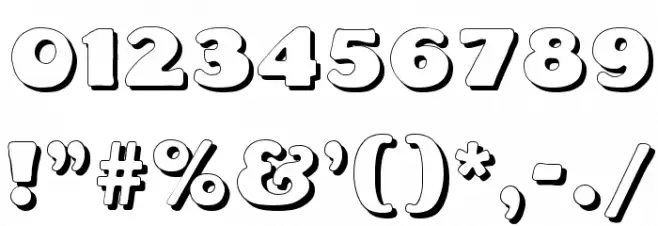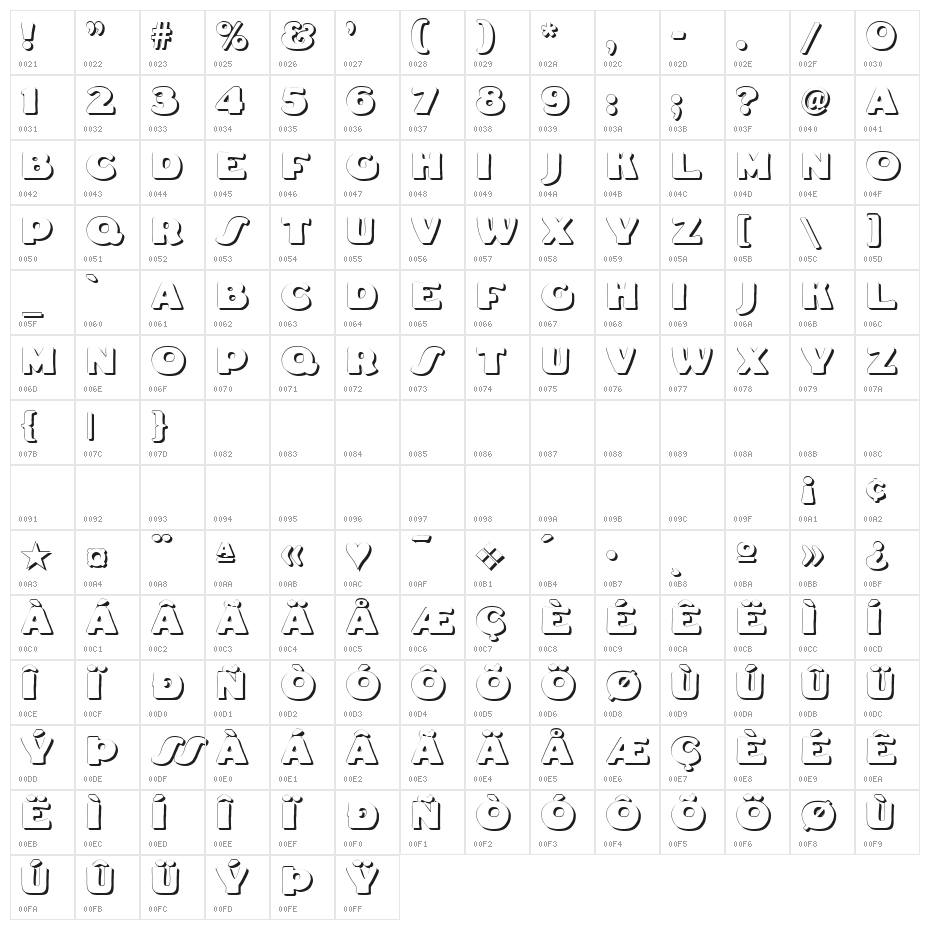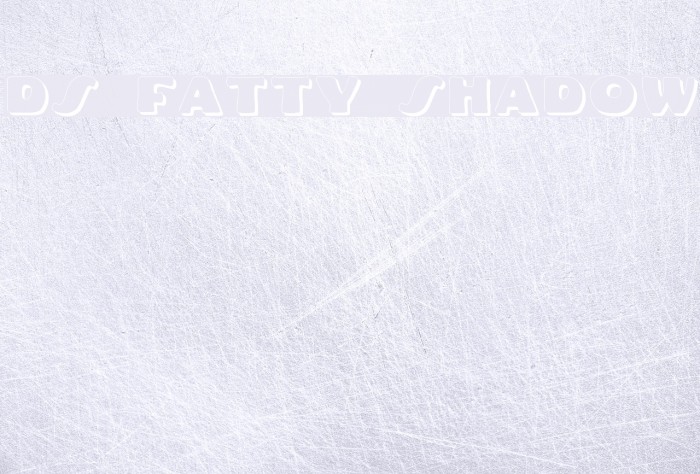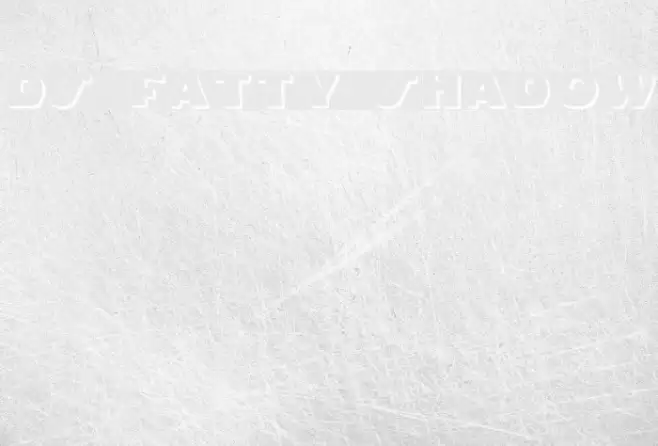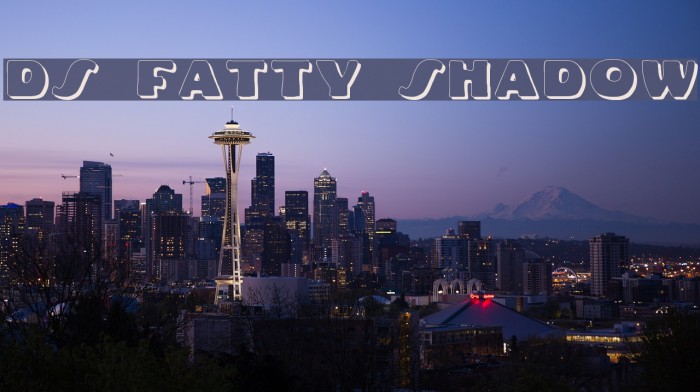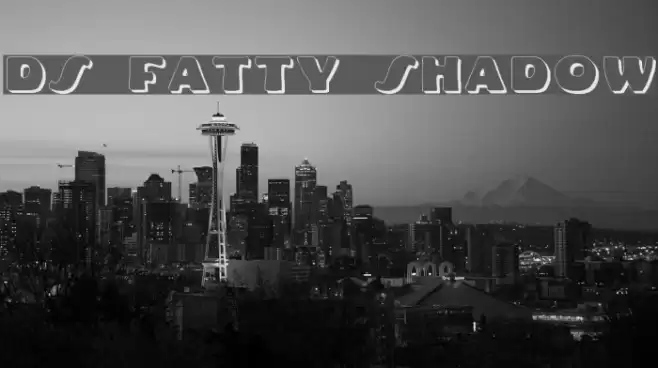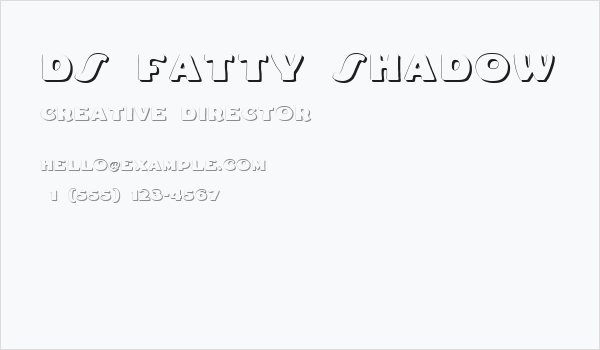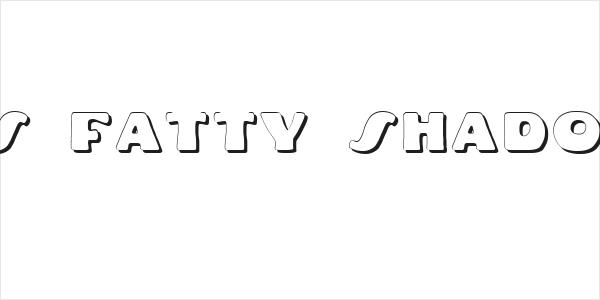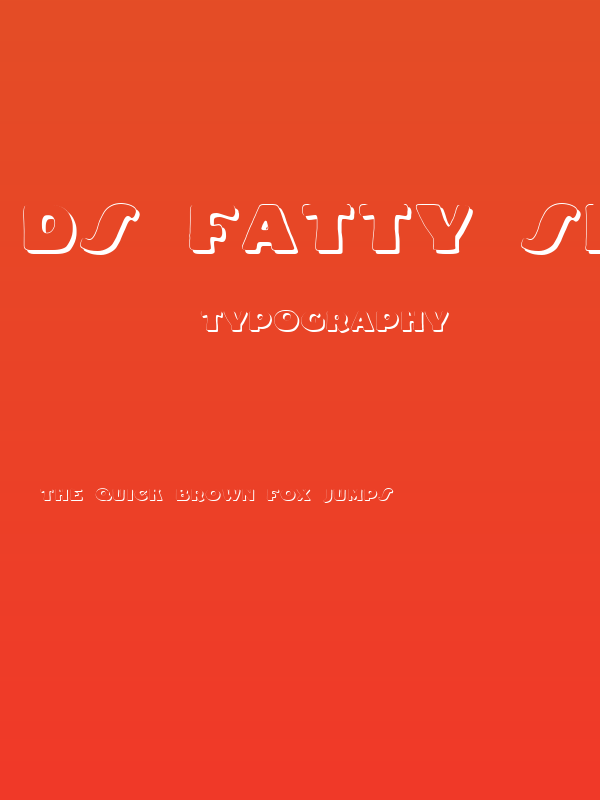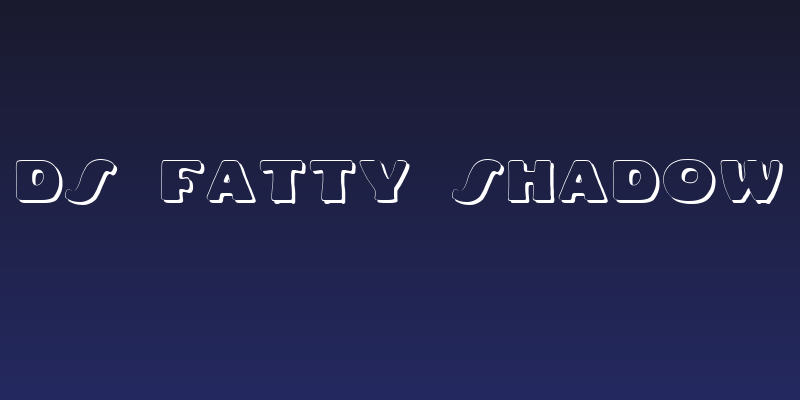
DS Fatty Shadow Font
DS Fatty Shadow Description
This font features bold, chunky letters with a playful shadow effect that adds depth and dimension. The characters are rounded and have a soft, approachable appearance, making them ideal for designs that require a friendly and inviting tone. The shadow is consistent across all characters, providing a uniform look that enhances readability. This style is particularly effective for creating eye-catching headlines or logos that need to stand out. The font includes a full set of uppercase and lowercase letters, numbers, and a variety of special characters, ensuring versatility for different design needs.
| Overall Style | Playful, Modern |
| Proposed Projects | Ideal for children's book covers, playful branding, posters, and social media graphics. |